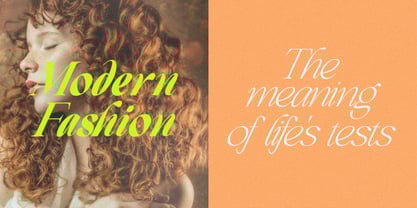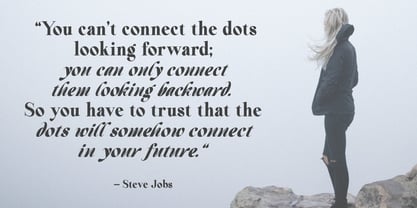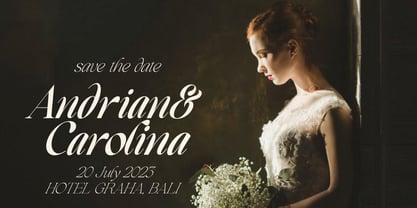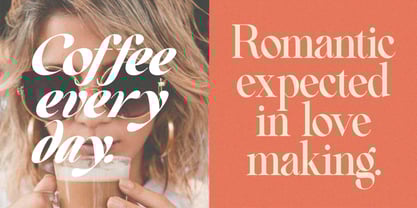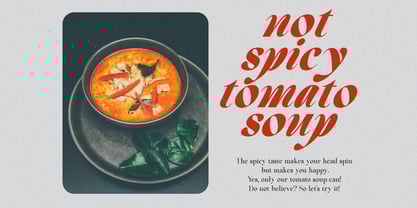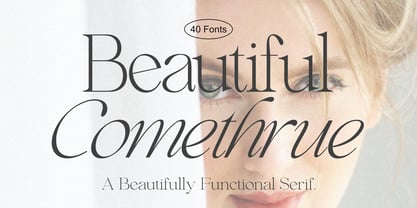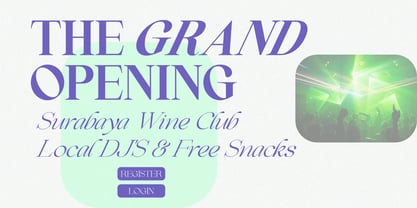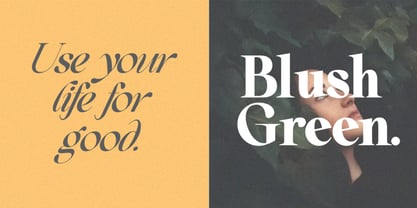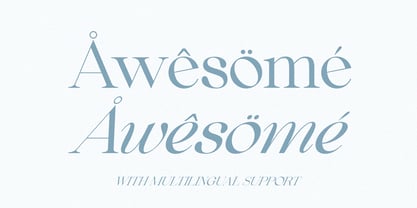
Comethrue
by Sealoung
The Comethrue Font Family was designed by Saiful Anwar and published by Sealoung. Comethrue contains 40 styles and family package options.
Say hello to Beautiful Comethrue FAMILY – an expansion of Beautiful Comethrue that includes 40 fonts, 3 widths and 9 weights, from thin to Heavy, and still has all the nostalgic vibes! Beautiful Comethrue is a beautifully nostalgic 40 font typeface that looks amazing in both large and small settings as a display and text body. Inspired by magazine ads from the 70s and 80s - this family is perfect for bringing retro back into the 21st century. Incredibly versatile - scroll through the previews to see the immense variety Beautiful Comethrue can create. The possibilities are truly endless :) I really like combining regular and italic words, whether all in one word (like in the Missfits sample) or in the body text! I had so much fun making this one - I hope you enjoy using it as much as I did :)
Designers: Saiful Anwar
Publisher: Sealoung
Foundry: Sealoung
Design Owner: Sealoung